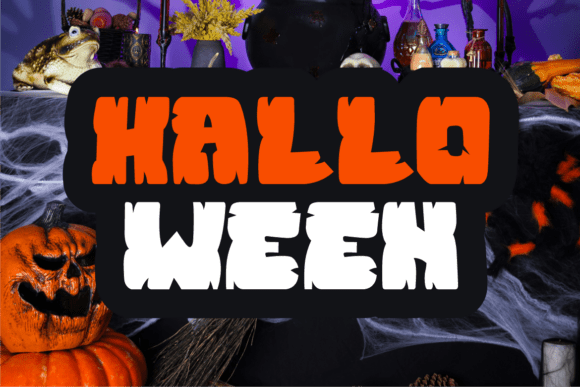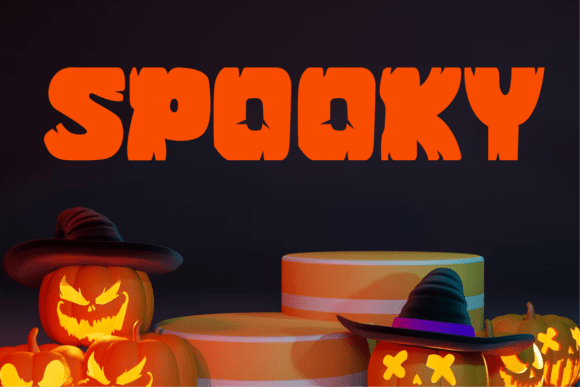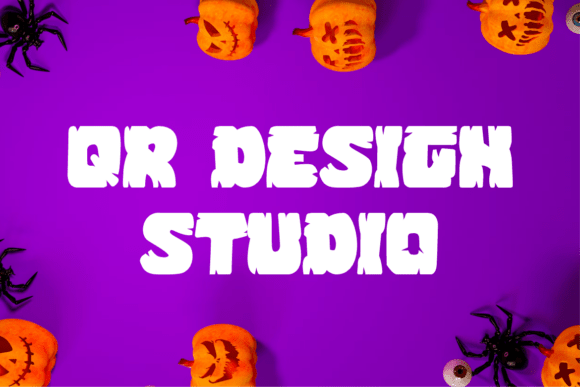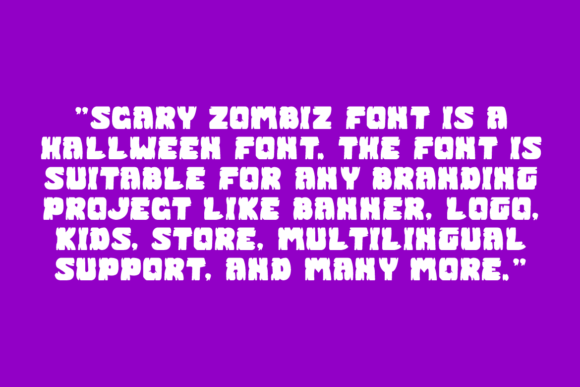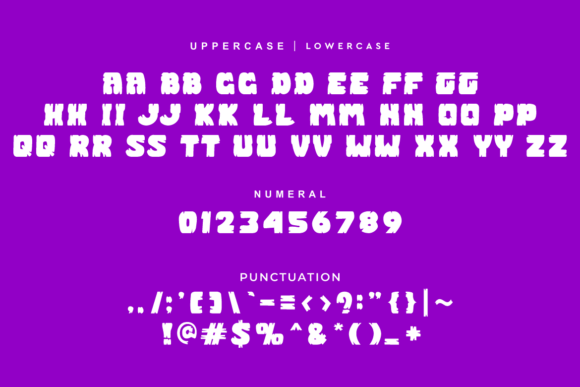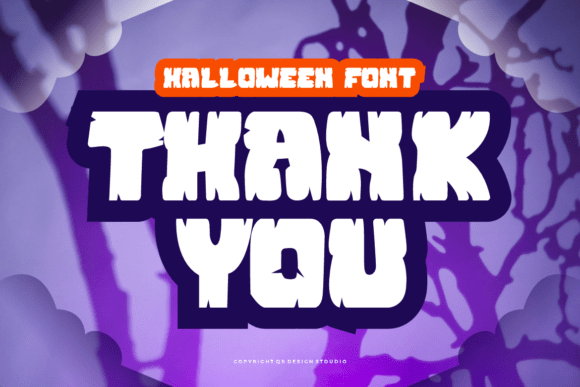
Introduction to Scary Zombiz Font
Scary Zombiz Font is a Halloween and authentic display font.
The font is suitable for any branding project, like logos, sports, and many more Outstanding in a wide range of contexts.
Key Features of Scary Zombiz Font
Why Choose Scary Zombiz Font?